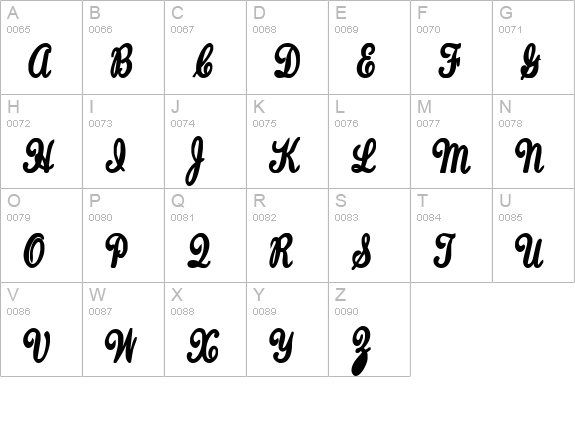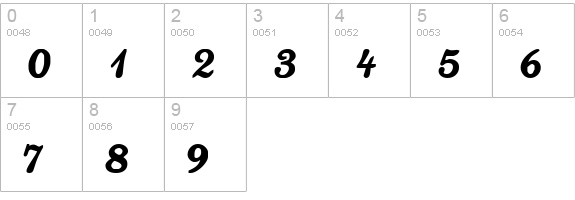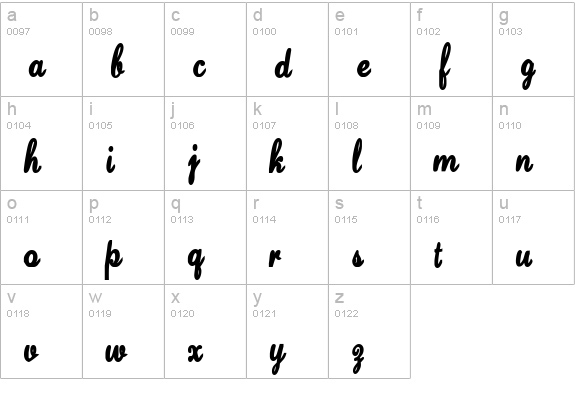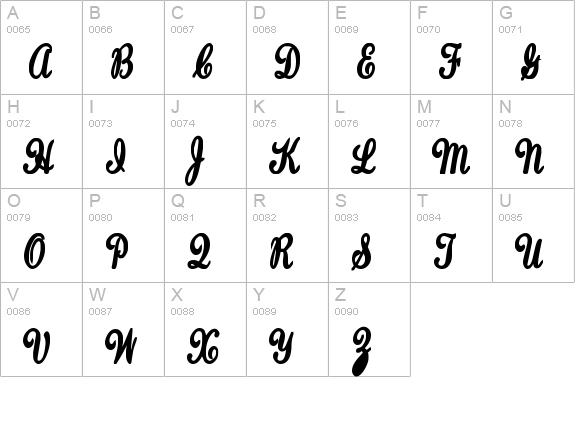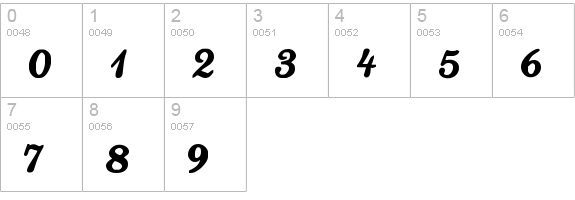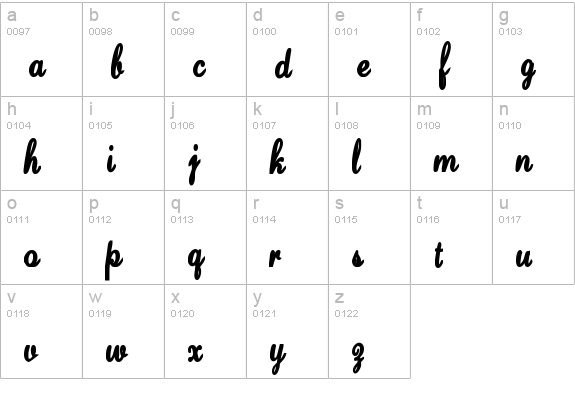
HelloHeyJoe Font Details
Introducing HelloHeyJoe font, a stunning and versatile typeface that exudes a perfect balance of elegance and playfulness. With its charming and unique letterforms, HelloHeyJoe offers a refreshing twist to any design project, be it a logo, branding, invitation, or headline. What sets HelloHeyJoe font apart is not only its exceptional visual appeal, but also its incredible affordability. Yes, you heard it right – this font is free! You can now easily add a touch of whimsy and sophistication to your designs without breaking the bank. Downloading HelloHeyJoe font is a breeze, as it is freely available at FontsMarket.com. This user-friendly website allows you to conveniently access and acquire this delightful font, ensuring that your creative endeavors are never hindered by budget constraints. With its wide range of characters and ligatures, HelloHeyJoe font offers endless possibilities for customization. Whether you choose to use it for print or digital purposes, this font guarantees outstanding legibility and seamless integration into any project. So why wait? Embrace the creative freedom that HelloHeyJoe font brings and unlock endless design possibilities. Download it for free at FontsMarket.com today and let your imagination run wild!